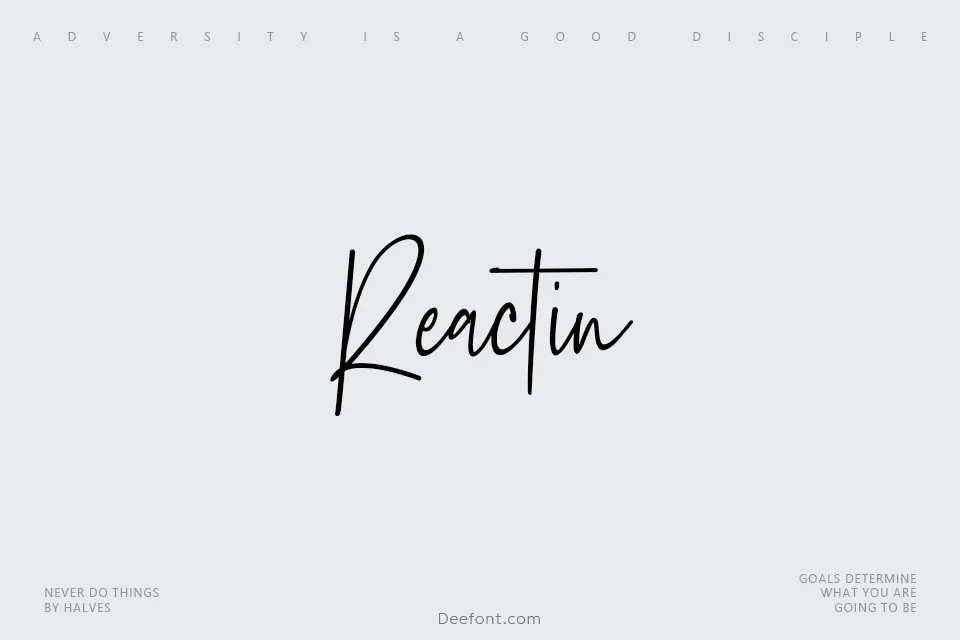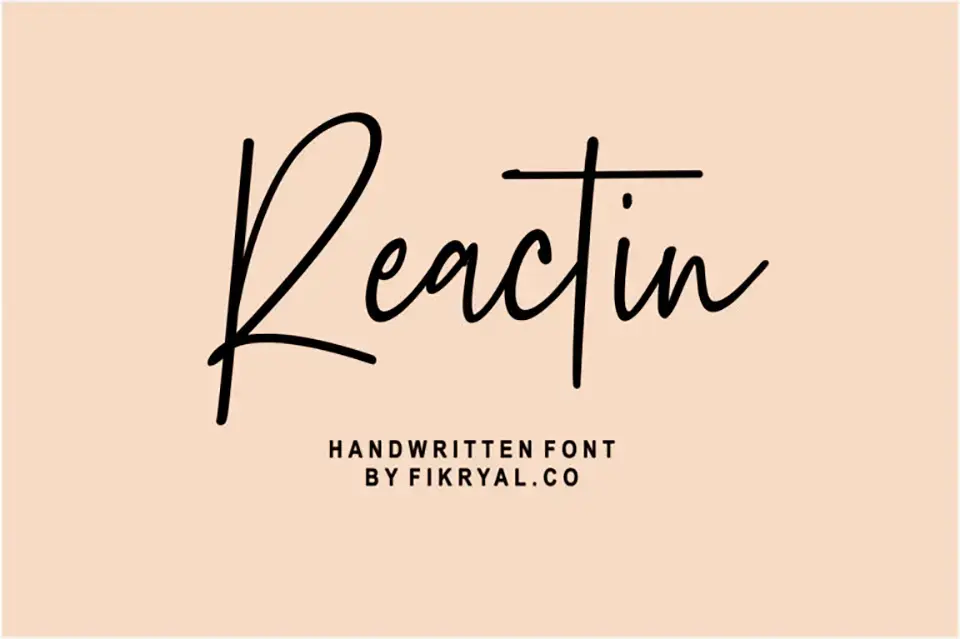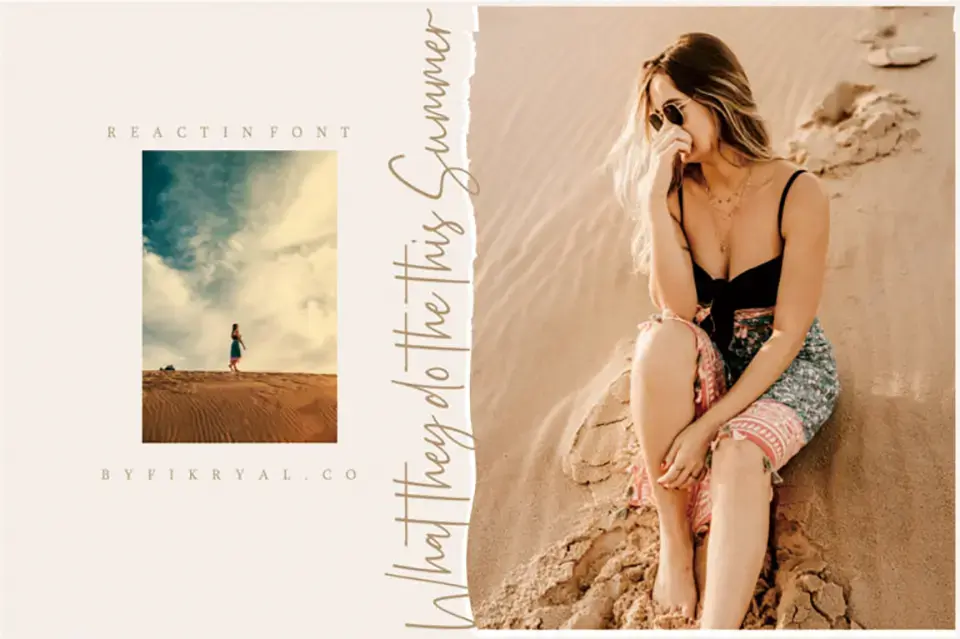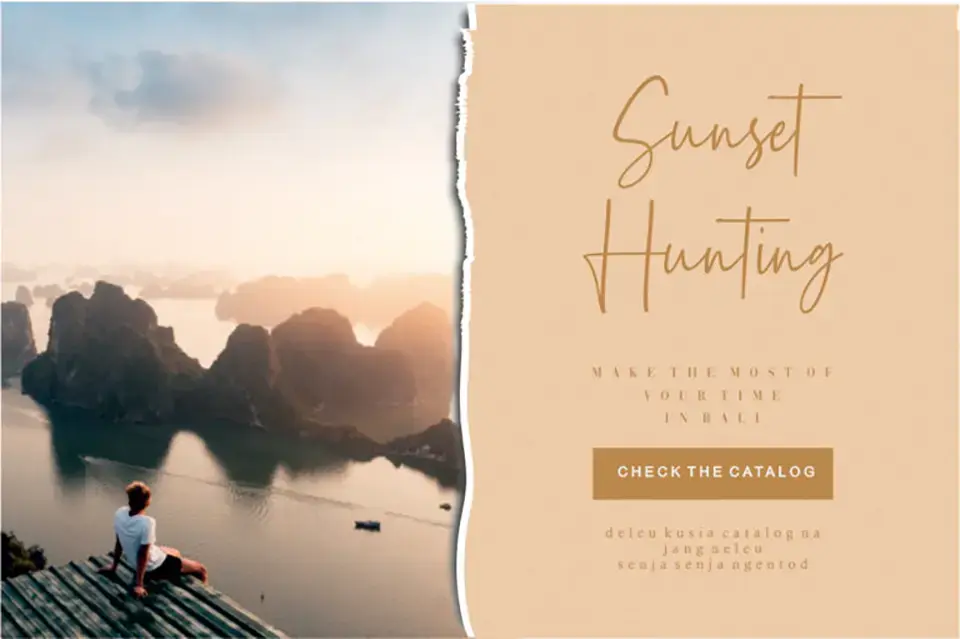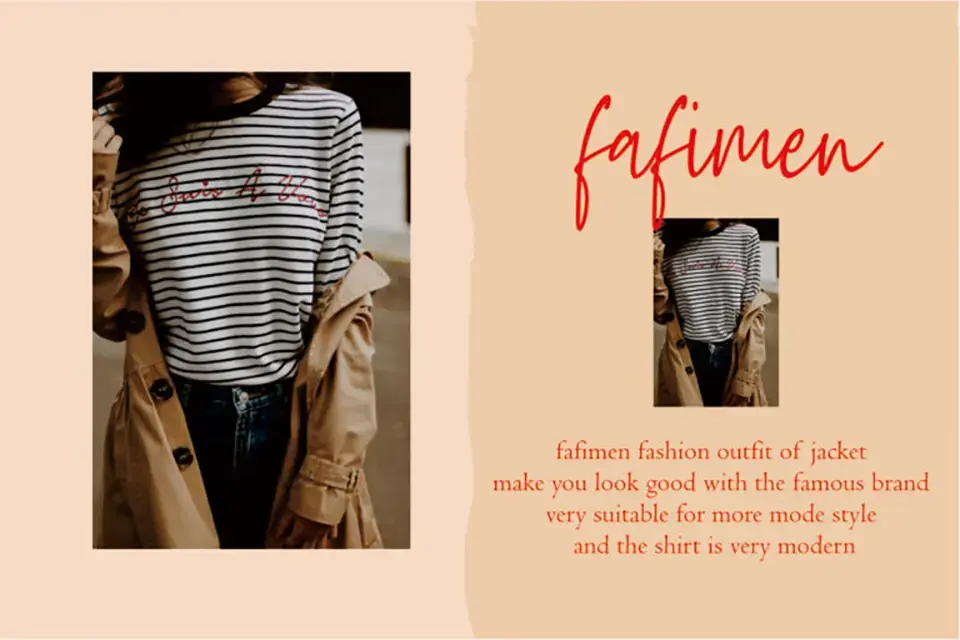
Reactin Font
Reactin is a contemporary handwritten script font featuring elegant, flowing letterforms crafted with a natural pen-and-brush aesthetic. Its casual yet refined character makes it ideal for wedding invitations, branding projects, logo designs, social media content, poster titles, and product packaging. The font’s organic strokes and personable charm add warmth and sophistication to display applications while maintaining excellent readability at various sizes.